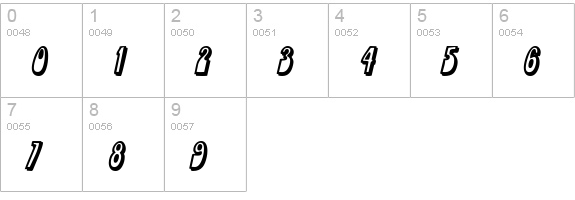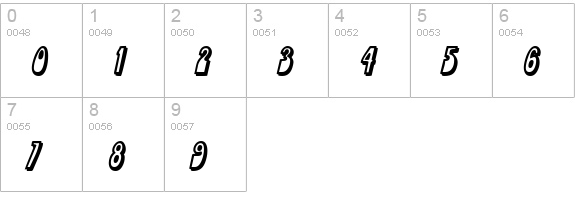
LopplerDisplay Bold Italic Font Details
LopplerDisplay Bold Italic is a strong, high-contrast, italic variant in the LopplerDisplay typeface family \xE2\x80\x94 well suited to headlines, attention-grabbing titles, and strong calls-to-action.
Introducing LopplerDisplay Bold Italic font, a perfect blend of boldness and elegance. This striking typeface exudes confidence and style with its unique italicized design, making it ideal for adding a touch of sophistication to any project. What sets LopplerDisplay Bold Italic font apart is its versatility - whether used for headlines, branding, posters, or any design that requires a bold statement, this font delivers every time. The sleek curves and sharp edges of each letter create a harmonious balance, ensuring readability while making a bold visual impact. And the best part? LopplerDisplay Bold Italic font is available for free download at FontsMarket.com. That's right, you can elevate your designs with this stunning font without spending a penny. So why wait? Download LopplerDisplay Bold Italic font today and take your projects to the next level!